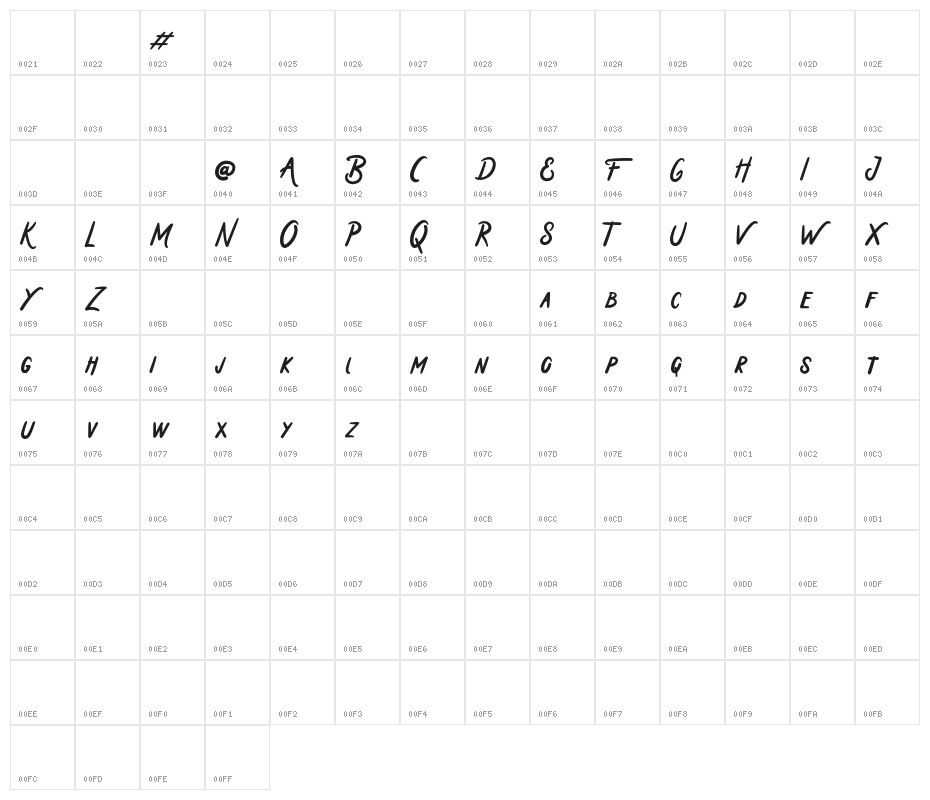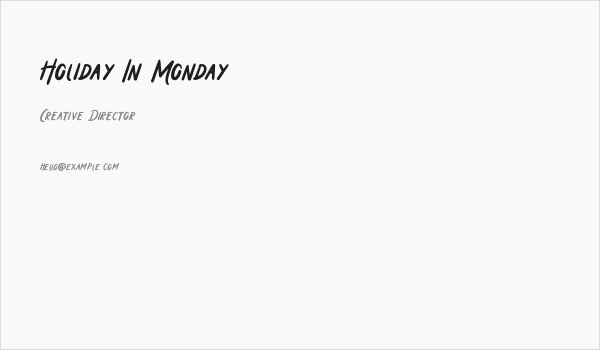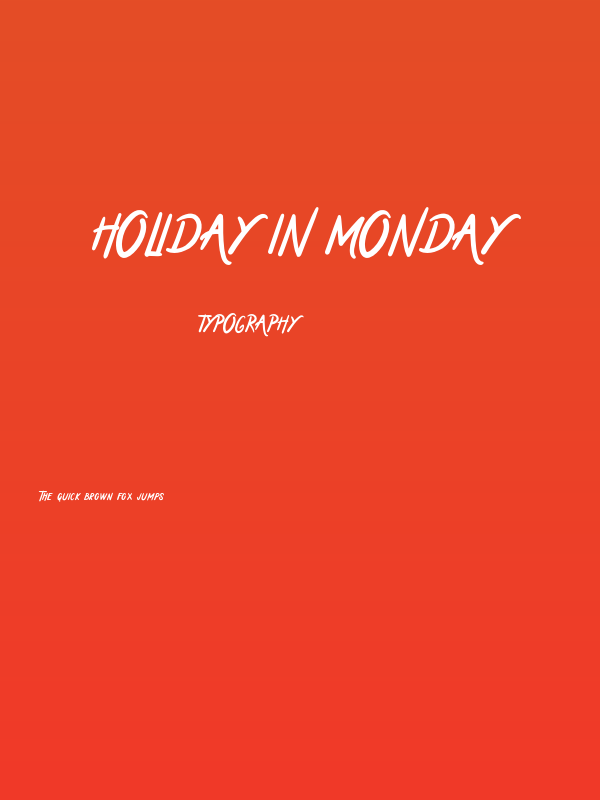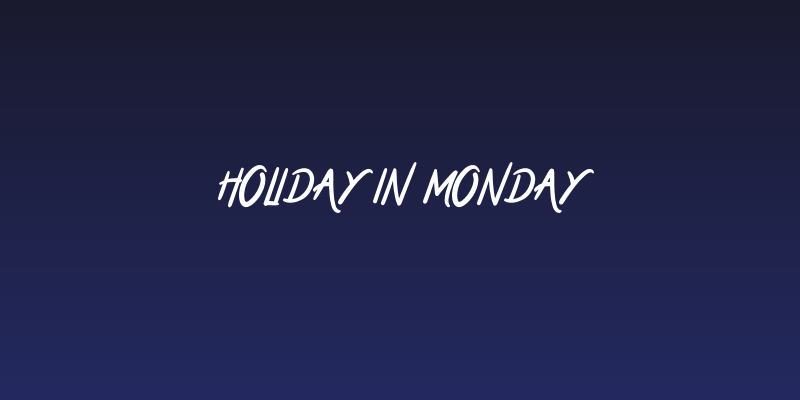
Holiday In Monday Font
Holiday In Monday Description
This font features a playful and energetic script style with a handwritten appearance. The letters are slightly slanted, giving it a dynamic and casual feel. The strokes are bold and fluid, with a consistent thickness that adds to its readability. The uppercase and lowercase letters maintain a cohesive style, with rounded edges and smooth curves. The font's overall design is lively and expressive, making it suitable for projects that require a personal touch. Its unique character is enhanced by the slight variations in letterforms, which add to its charm and individuality.
| Overall Style | Casual |
| Use Case | Logos, Headlines, Invitations |
| Proposed Projects | Ideal for greeting cards, invitations, branding, and social media graphics. |